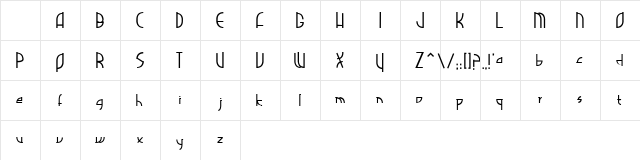
Futon Revolutionist Regular
Design Context for Futon Revolutionist Typeface
Futon Revolutionist is a composed and adaptable typeface that performs quietly and consistently across a wide range of design contexts.